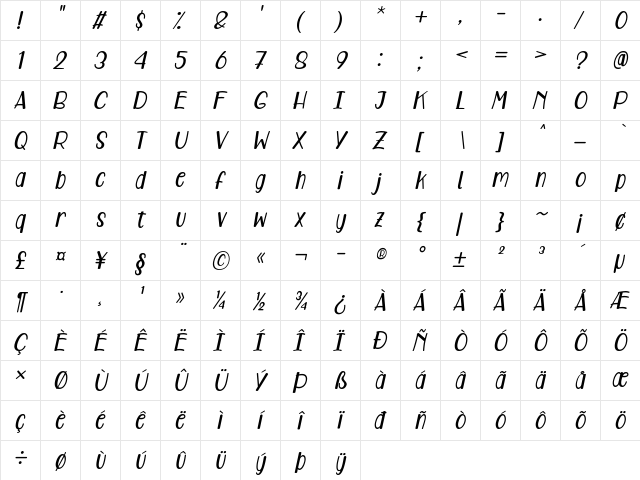
Care Around Italic
| Foundry | 7NTypes |
| Designer | Dani; Situjuh Nazara |
Design Context for Care Around Typeface
Care Around softens its letterforms with rounded terminals, giving it an approachable, friendly quality that works well in consumer-facing and digital contexts. Its italic angle brings a sense of urgency and motion to the letterforms.
A natural fit for tech startups, health and wellness brands, children's products, and friendly consumer apps.
Font Pairing: Pairs well with a rounded or humanist sans for body copy, maintaining the friendly tone without relying on Care Around to carry extended reading.
Pro Tip: Pair Care Around with a geometric sans for a balanced system — the rounded softness works as a warm counterpoint to harder-edged companions.